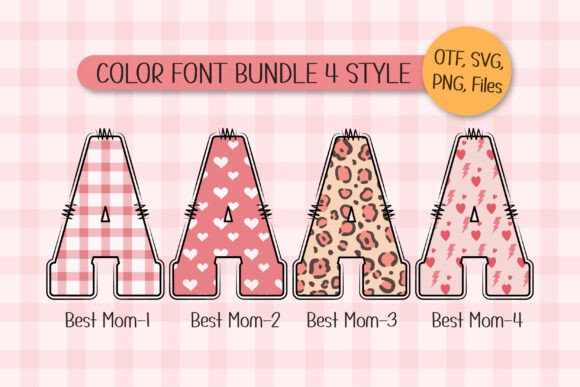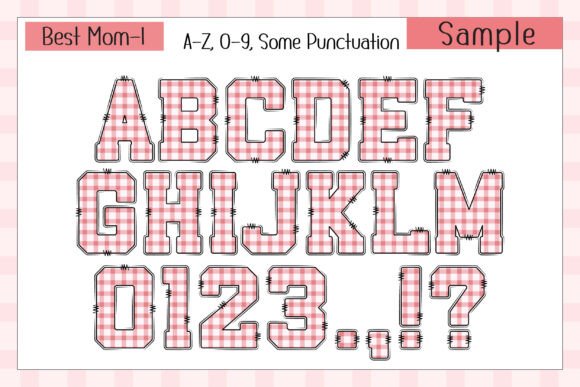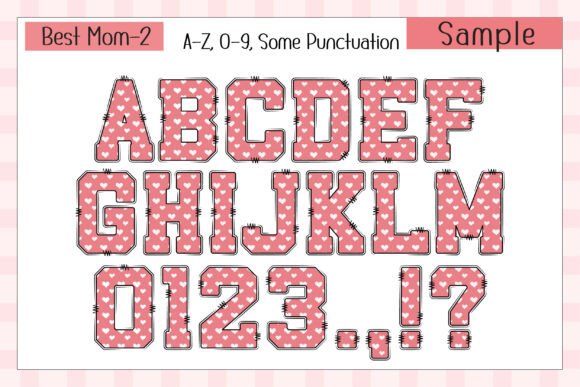
Best Mom Font
Celebrate the love of motherhood with “Best Mom” a heartwarming Mother’s Day-themed color font in a beautiful serif style. Designed with sweet love-inspired colors, this font beautifully conveys the warmth and care of a mother’s love. Adding to its charm, it comes with 20 matching doodle cliparts featuring adorable heart characters and cute flowers, making it perfect for heartfelt Mother’s Day cards, posters, quotes, T-shirts, custom names, DIY craft projects, and more. Let “Best Mom” bring joy and appreciation to your creative designs, making every project a touching tribute to moms everywhere!The black version of this font is compatible with Cricut Design Space and other cutting machines.Note! The color version of this font is only compatible with certain design programs incl. PhotoShop, Illustrator, Silhouette, and Inkscape. The OTF and/or TTF files of the color version are not compatible with Cricut. For more information on how to use this type of font please check our Ultimate Font Guide .